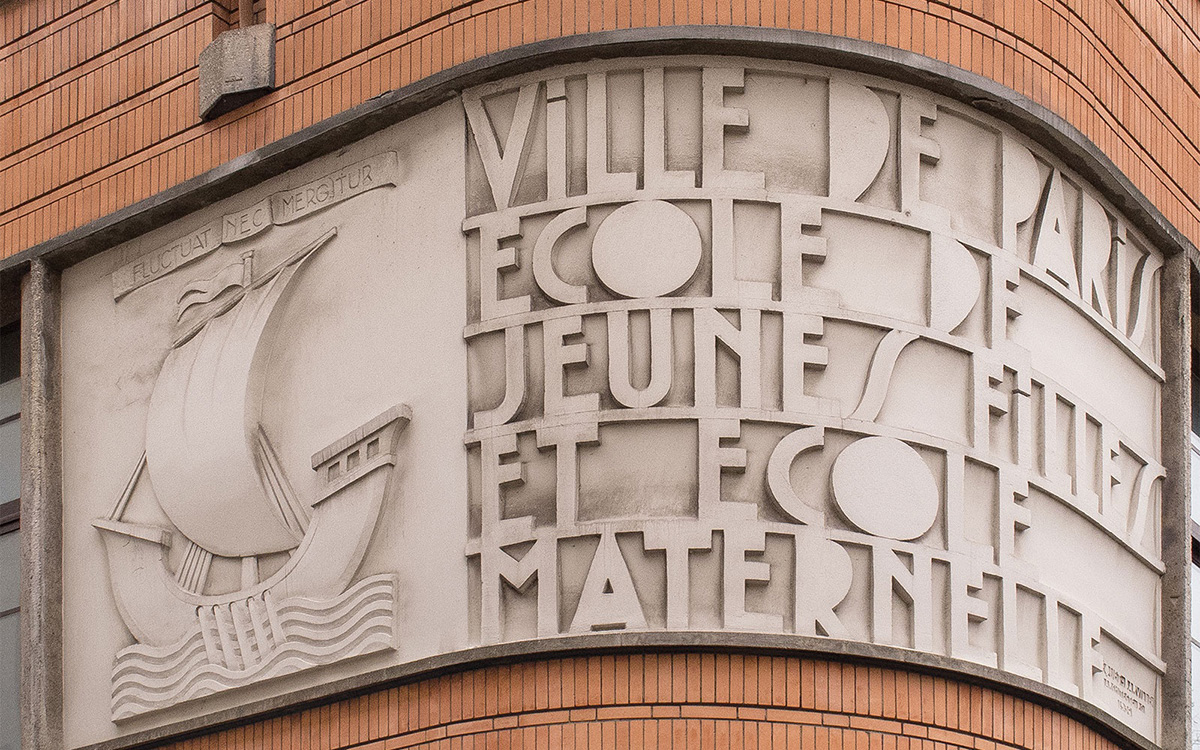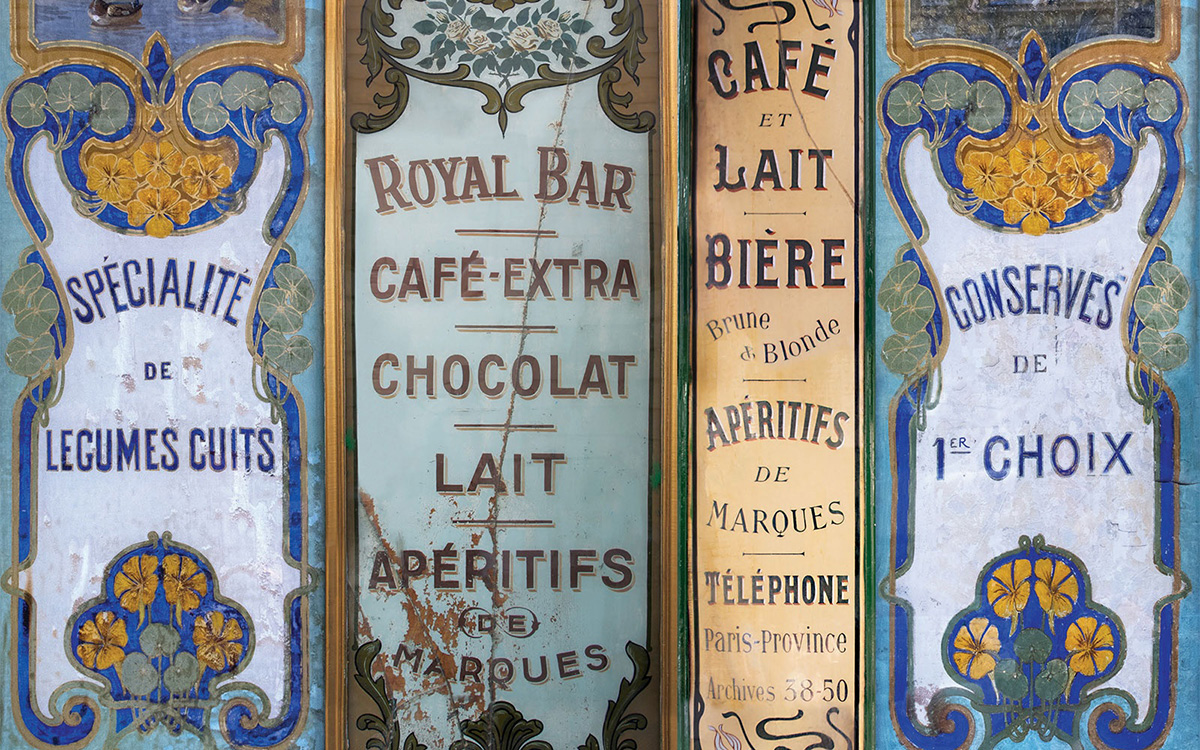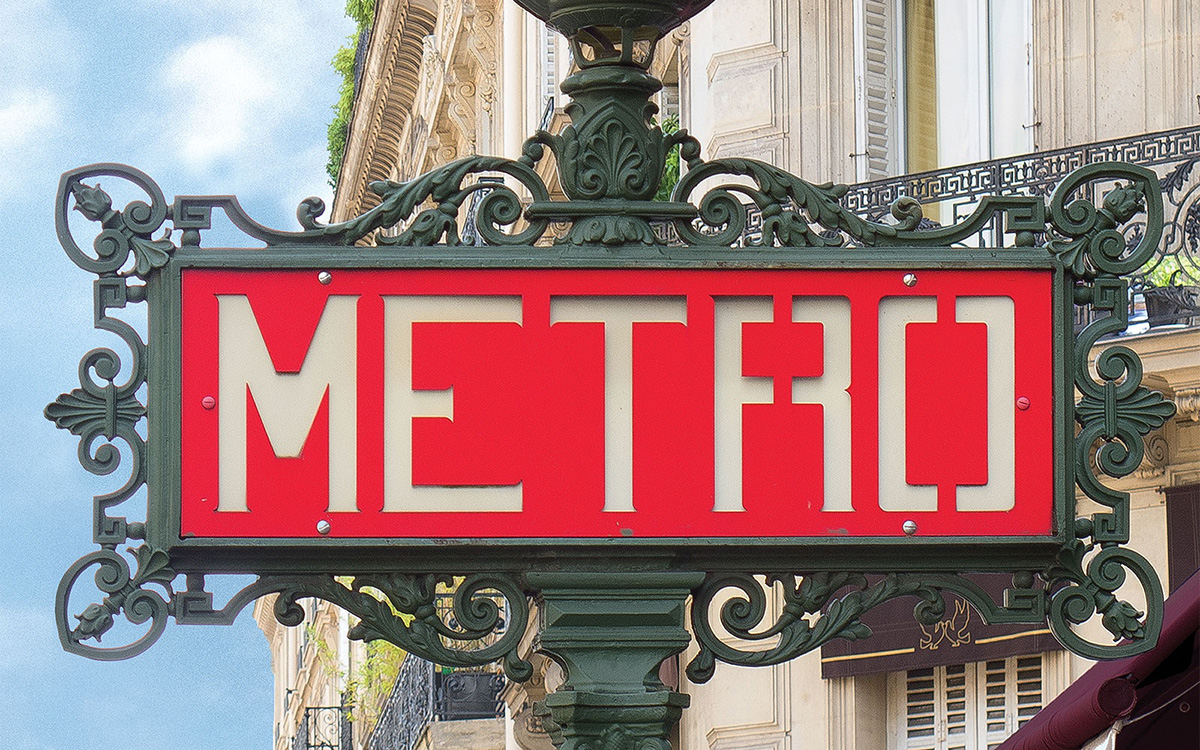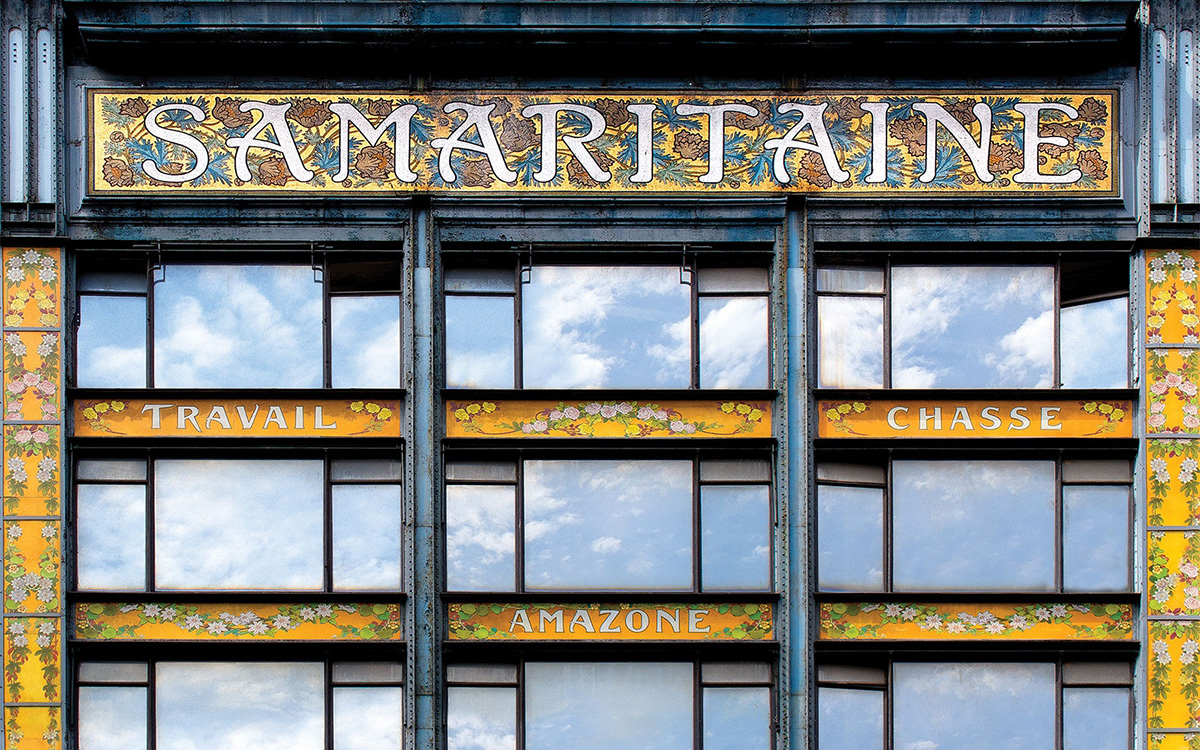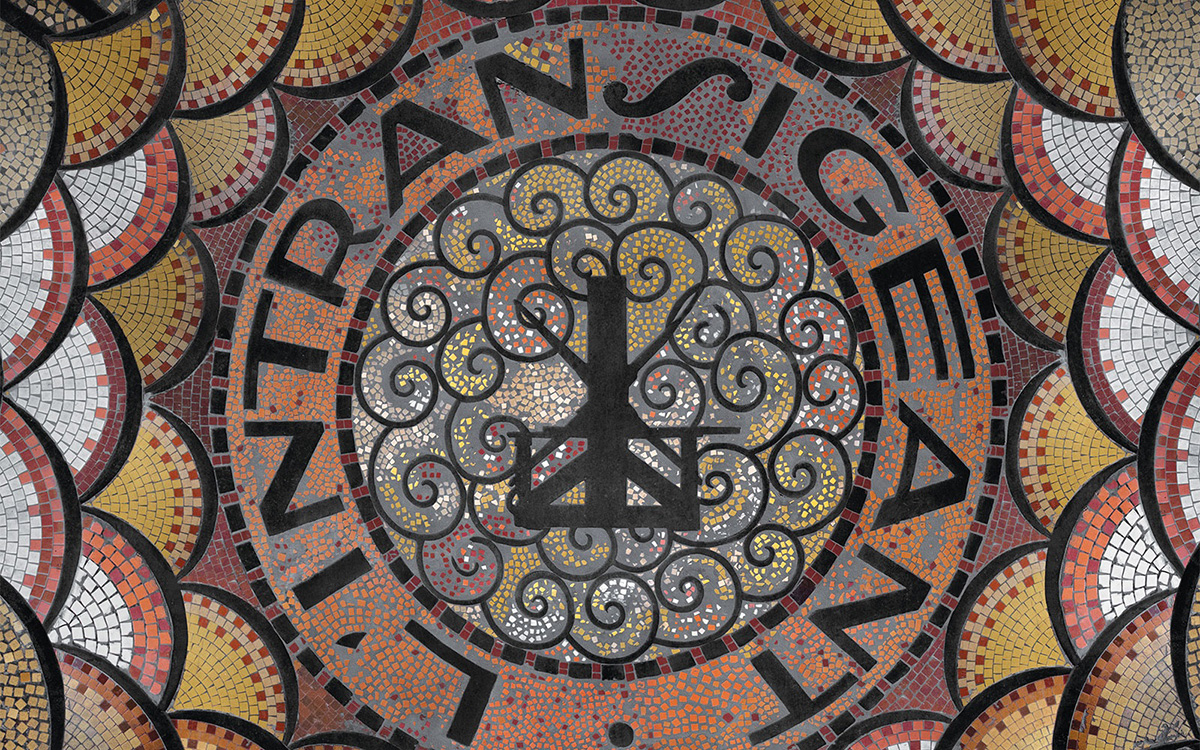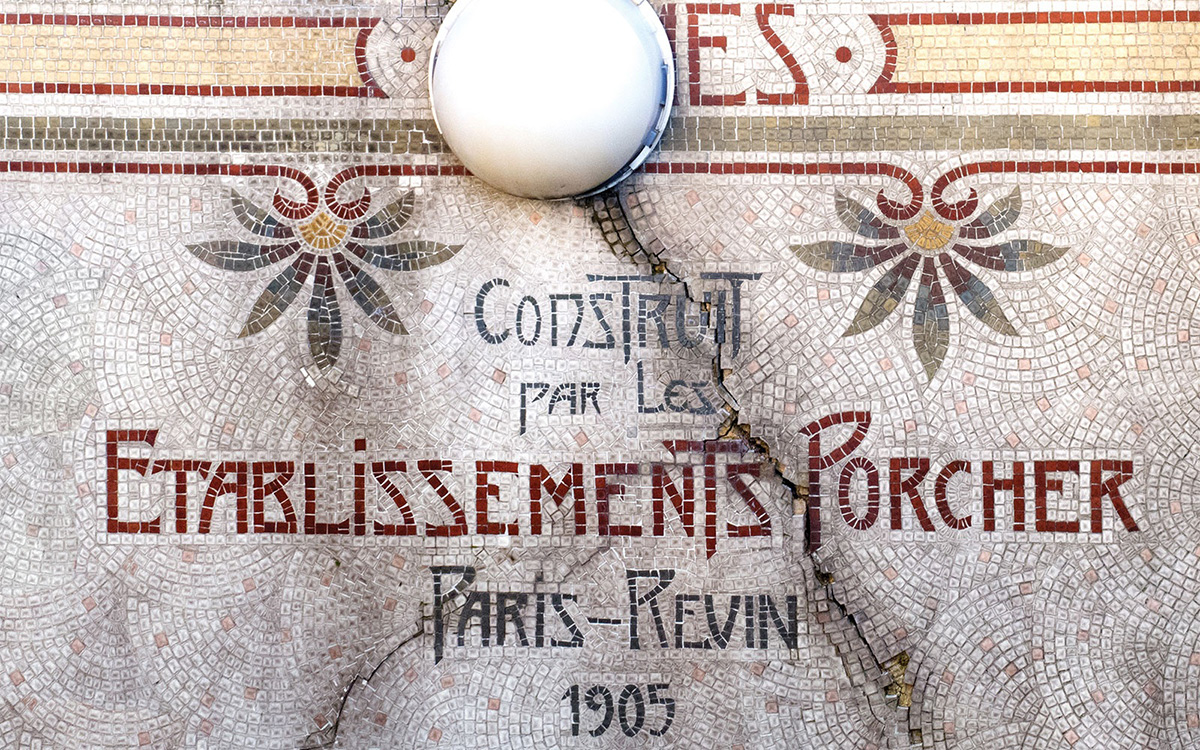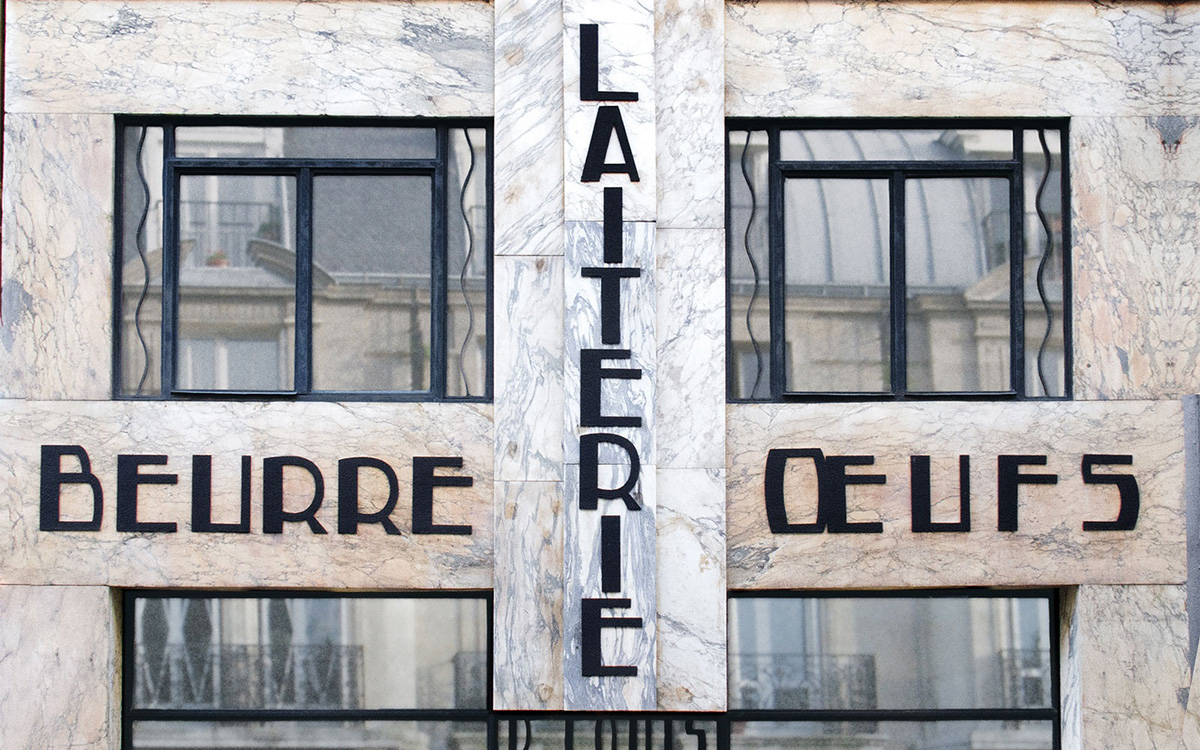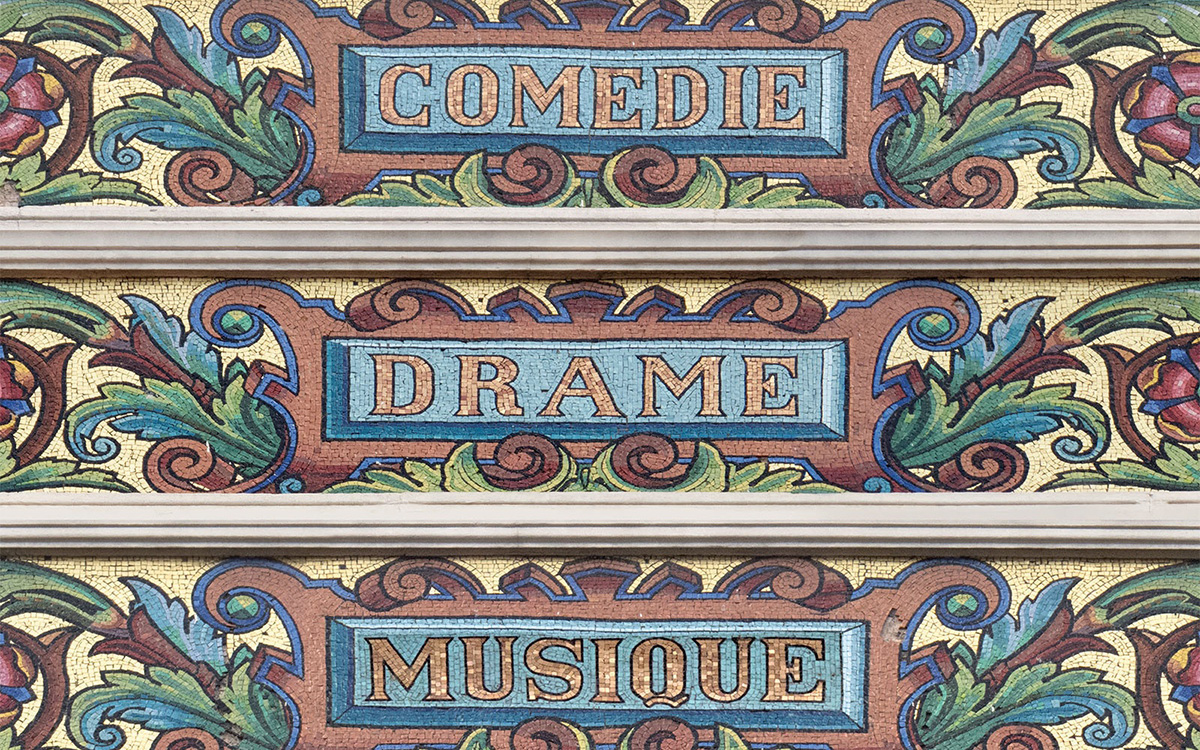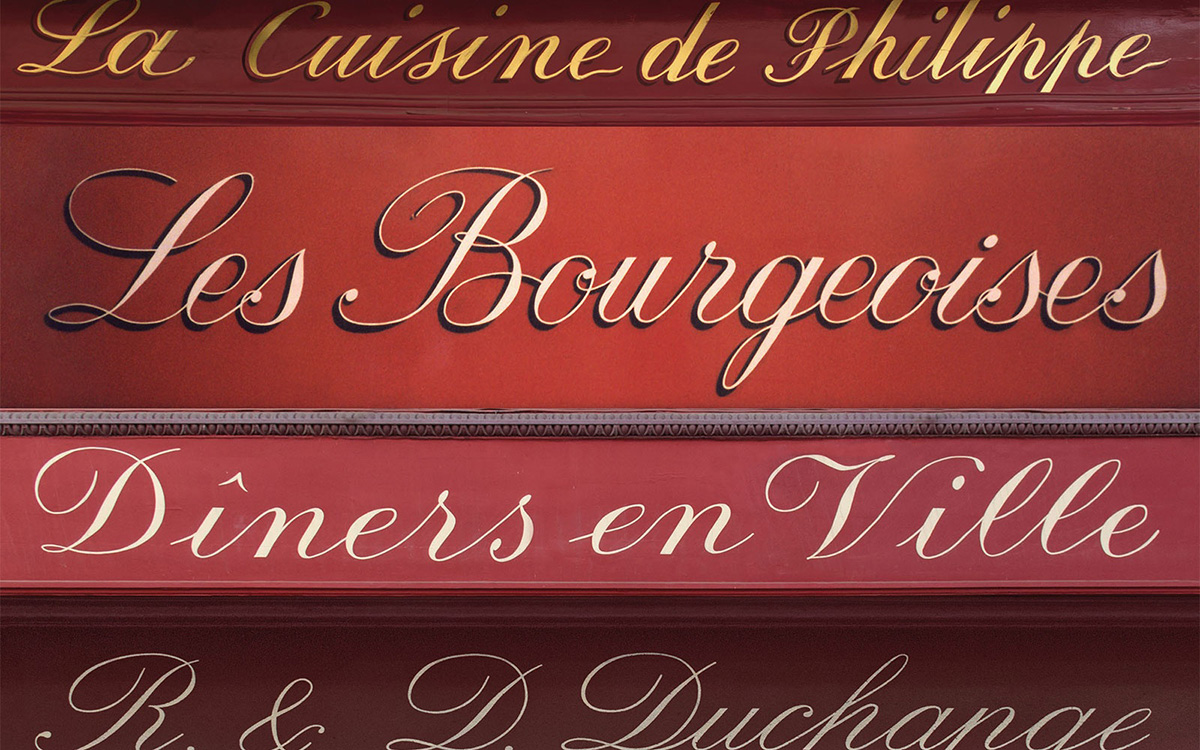
Let Louise Fili guide you through the boulevards of Parisian typography
A Monsieur Olivier–style road sign. A bold, red stenciled 1920s type for Paris’ Métro system. A mosaic by 19th-century Italian artist Giandomenico Facchina as part of the Théâtre Antoine, in the 10th arrondissement. A series of Art Nouveau letterforms Hand-painted signage covering one side of the announcing the Samaritaine department stores’ offerings near Pont Neuf. The futurist-inspired architectural letterforms adorning the grand, curved wall of a primary school designed by architect René Requet-Barville, in the 11th arrondissement. For many Paris is the city of lights, for celebrated graphic designer Louise Fili it is the city of the letterform. Its stunning signage is a constant inspiration and a major on Fili’s own work.
Following the success of Grafica della Strada, a book in which she celebrated Italy’s typographic legacy capturing an impressive menu of lettering styles and materials from Bologna to Turin, Graphique de la Rue is Fili’s typographic lettre d’amour to Paris. As the renowned Italian-American designer has been strolling picturesque Parisian rues and boulevards for more than four decades, holding just a map and a camera, she was cataloging the work of generations of sign craftsmen. Today these photographs are becoming her own typographic travelogue, a visual diary of hundreds of Paris’ most inventive restaurant, shop, hotel, street, and advertising signs that will inspire lovers of typography and armchair travelers alike.
“The Art Deco letterforms on the facade of an old laiterie or the delicate gold-leaf typography of a boulangerie can make me giddy with delight”
Classic neon café signs are juxtaposed with the dramatic facades of the Moulin Rouge and the Folies Bergère. Colorful mosaics cheerfully announce hotel entrances, department stores, fishmongers, even public toilets. Hector Guimard’s legendary entrances to the Paris Métro stations brush elbows with graceful gold-leaf and dimensional Art Deco, Futurist, or Art Nouveau architectural lettering, as well as whimsical pictorial signs (giant eyeglasses announce optics, and oversized hanging shears indicate a knife and scissors maker). Many of these masterpieces of vernacular design, now destroyed, live on solely in this book.
“The Art Deco letterforms on the facade of an old laiterie or the delicate gold-leaf typography of a boulangerie can make me giddy with delight,” she writes in Graphique De La Rue. “This book is my typographic love letter to Paris.” She prefers to discover this wealth of striking yet elegant in early morning “when the city belongs to no one but me and a silent army of green-suited street cleaners. I race through the desolate streets, chasing down every photogenic sign, playing cat and mouse with the sun until about 10:30 a.m... I then plan the rest of my day—as the incessant flaneur around the city, making unexpected typographic discoveries” she adds.